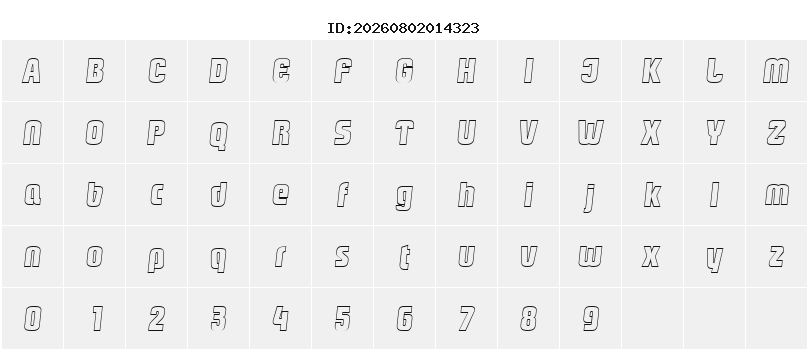
• Font Name: MaxBeckerOutline-ExtraBold
• Full Font Name: MaxBeckerOutline-ExtraBold-Italic
MaxBeckerOutline-ExtraBold.ttf is a modern, elegant sans-serif font designed for ultimate readability and visual harmony. Perfect for branding, headlines, web design, and print materials.